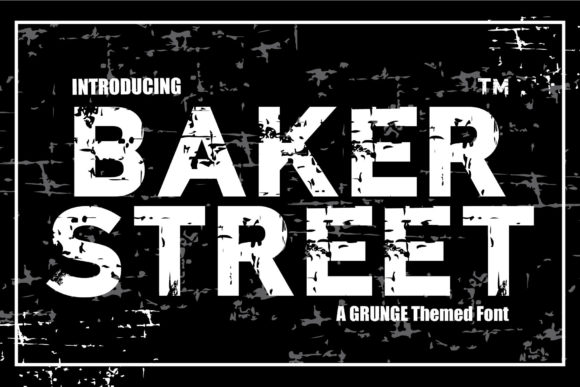
Dive into the realm of boundless creativity with Baker Street Font, a display font that resonates with boldness, coolness, and an assertive spirit. Express the essence of speed and sports with its captivating letterforms, crafted meticulously by the ingenious KtwoP.
Step into the fast lane of visual storytelling, where Baker Street Font takes center stage, propelling your designs to new heights. Experience the rush of adrenaline as this font ignites a sense of dynamism and energy in your projects. Unleash your inner daredevil and embrace the thrill of crafting designs that leave a lasting impression.
Picture yourself designing an enthralling banner that captures the spirit of a high-octane car race, using Baker Street Font to convey the exhilarating speed and intensity of the competition. Or perhaps you're creating a captivating sports poster, where the font's assertive lines and sharp angles convey the determination and athleticism of the featured athletes.
Baker Street Font isn't just confined to the world of speed and sports; it's a versatile chameleon that adapts effortlessly to a myriad of design concepts. Imagine crafting a striking logo for an extreme adventure company, where the font's bold and adventurous spirit aligns perfectly with the brand's ethos.
Embark on a typographic journey filled with boundless possibilities, where Baker Street Font becomes your trusted companion. Let your creativity soar as you discover the endless variations and applications this font has to offer. From adrenaline-fueled designs to bold and assertive statements, Baker Street Font is your gateway to captivating visual expressions.